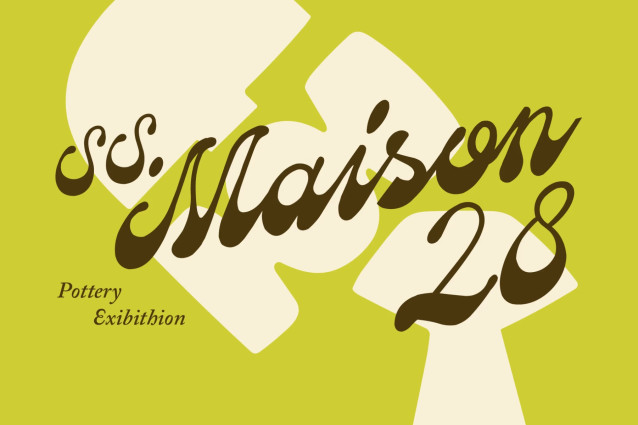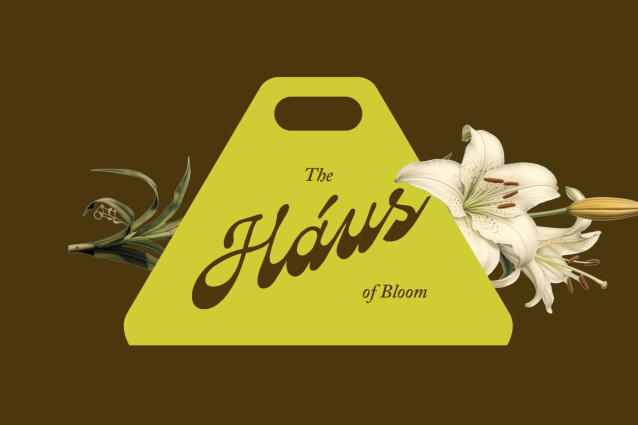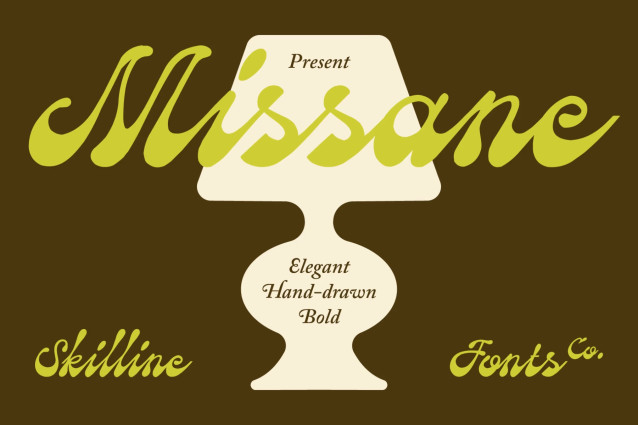
SFC Missane is an elegant hand‑drawn script typeface shaped with smooth curves, expressive strokes, and refined detailing. Its letterforms feature balanced proportions and a subtle organic flow, creating a polished handwritten rhythm with a clean, cohesive visual presence. Inspired by modern calligraphy and natural pen movement, the design highlights graceful motion and a warm handcrafted character.
Carefully crafted with consistent structure and soft stroke transitions, Missane delivers a distinctive script personality that blends fluid movement with clear readability. The typeface includes extended Latin characters, multilingual support, complete numerals, punctuation, and stylistic ligatures, offering a refined handwritten finish with timeless visual charm.